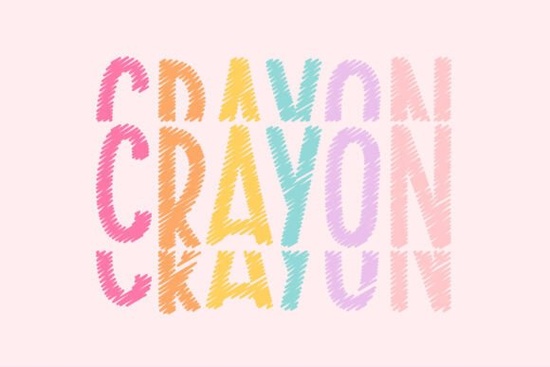
If you're working on a project that calls for a touch of childhood whimsy think birthday party invites, classroom decor, or cheerful packaging the Crayonfriends Stacked Font might be just what your design needs. This hand-drawn font mimics the look of crayon scribbles made by a joyful kid, complete with soft edges, uneven lines, and a warm, inviting texture. It’s not just playful it feels personal, like something crafted with care rather than generated by software.
Designed with crafters, small business owners, and print-on-demand creators in mind, Crayonfriends Stacked Font works especially well when you want your message to feel approachable and full of heart. Whether you’re labeling homemade cookies for a bake sale or creating a welcome sign for a preschool classroom, this font adds an instant layer of friendliness without looking overly polished or corporate.
What kinds of projects work best with Crayonfriends?
This font shines in contexts where warmth and simplicity matter more than sleek minimalism. Consider using it for:
- Birthday invitations and party banners
- Educational printables like flashcards or reward charts
- Children’s book illustrations or activity pages
- Custom apparel or mugs with uplifting messages
- Handmade product labels (think bath bombs, soaps, or snack bags)
Because of its organic, slightly irregular strokes, Crayonfriends pairs beautifully with soft color palettes pastel blues, mint greens, buttery yellows and textured backgrounds like watercolor paper or chalkboard-style graphics. Avoid pairing it with ultra-modern sans-serifs; instead, let it stand alone or combine it with simple handwritten companions for balance.
How does it compare to other playful fonts?
Tips for using Crayonfriends effectively
Like any hand-drawn typeface, less is often more. Here’s how to get the most out of it:
- Avoid long paragraphs. This font works best in headlines, short phrases, or single words (“Happy Birthday!” or “You Did It!”).
- Use generous spacing. Because the letters have a stacked, slightly overlapping style, tight kerning can make them feel cluttered. Give each word room to breathe.
- Stick to larger sizes. The fine crayon-like texture may disappear if scaled too small aim for at least 24pt in print or 32px on screen.
- Layer with icons or doodles. Pair it with simple line drawings of stars, clouds, or animals to enhance the handmade vibe.
Also, remember that while Crayonfriends feels casual, it’s still a professional-grade font file. That means clean vector outlines, consistent stroke weights, and compatibility with popular design tools like Canva, Adobe Illustrator, and Silhouette Studio so your final output stays crisp whether you’re printing stickers or uploading to Etsy.
Who should consider this font?
If you regularly create content for kids or for adults who appreciate nostalgic, heartfelt design you’ll find Crayonfriends surprisingly versatile. Teachers making classroom materials, Etsy sellers crafting custom greeting cards, or even bakers designing cupcake toppers can all benefit from its cheerful energy. It’s also great for branding small businesses that want to signal warmth and authenticity, like family-run daycares, children’s clothing lines, or local toy shops.
Unlike trend-driven fonts that fade after a season, Crayonfriends taps into a timeless aesthetic: the unfiltered joy of childhood creativity. That makes it a reliable addition to your font library, not just a one-time novelty.
Ready to try it?
Here’s a quick checklist before you start designing:
- ✅ Confirm your project aligns with a playful, child-friendly tone
- ✅ Choose a soft, complementary color palette
- ✅ Test readability at your intended size
- ✅ Pair with minimal supporting graphics to avoid visual overload
With those steps in place, Crayonfriends Stacked Font can help you create designs that don’t just look good they feel good, too.